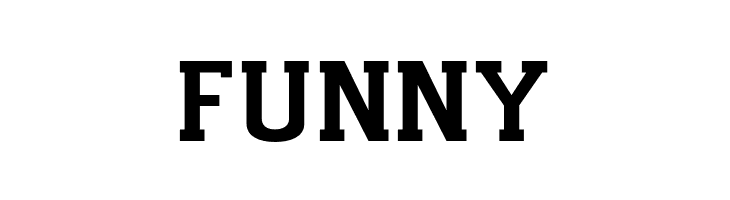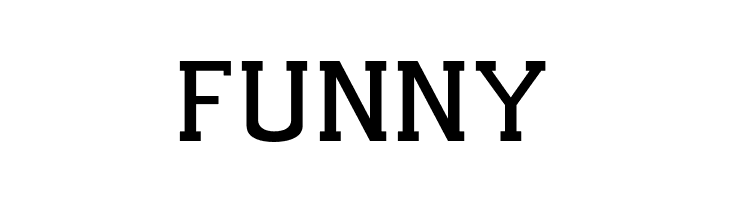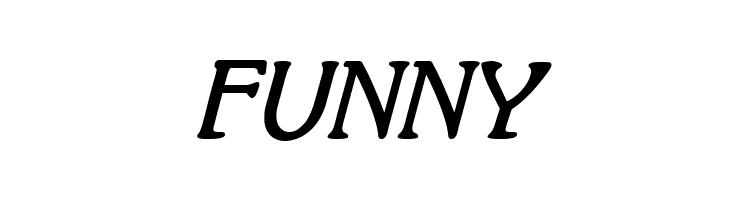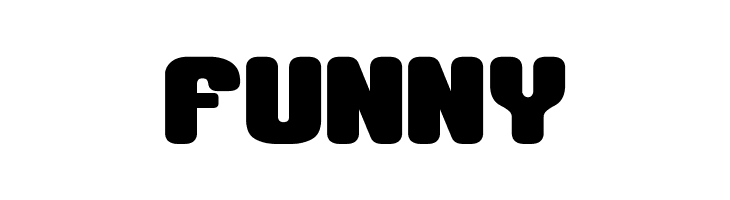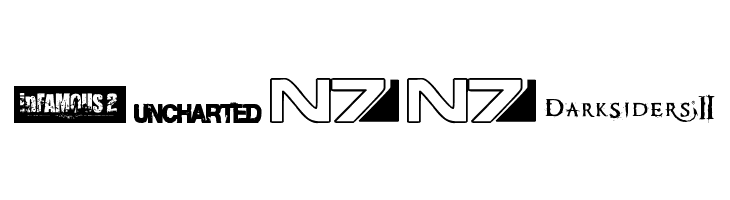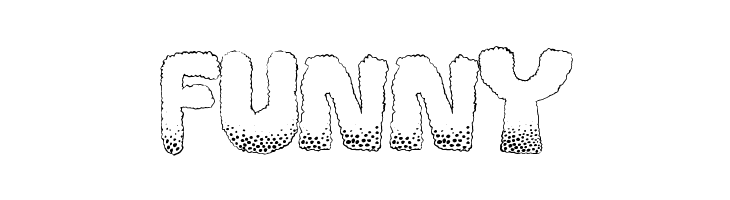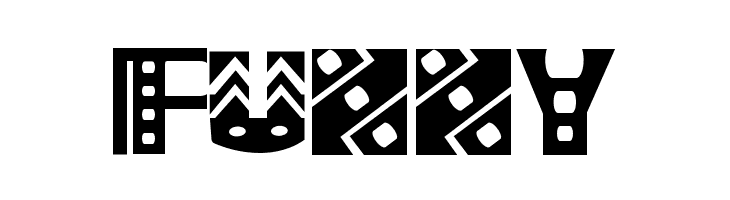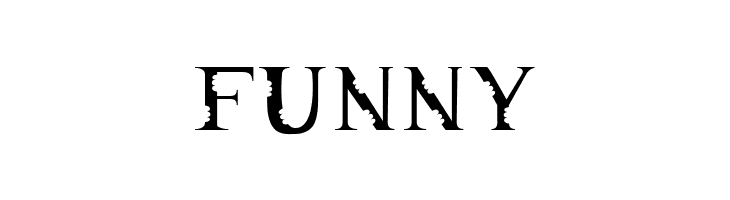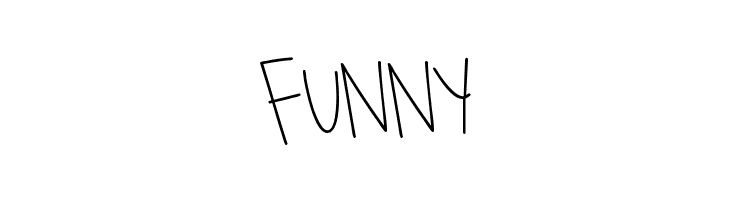
A playful font made of coffee bean-like shapes, offering a textured and unique appearance.
A tall, narrow, hand-drawn font with a rustic and organic feel.
A playful, bold font with a whimsical, cartoon-like style.
A bold, rounded font with a playful and modern style.
A flowing, cursive script font with elegant swashes and a modern twist.
A bold, geometric font with a modern and impactful design.
A playful handwritten font with a casual and friendly style.
A bold, textured font with a rugged, organic appearance.
A bold, textured font with a rugged, distressed style.
A modern, rounded sans-serif font with uniform stroke width and balanced spacing.
An elegant serif font with a modern twist, offering balanced and refined letterforms.
A bold, distressed font with an eroded, edgy appearance.
A playful, textured font with a bubbly, hand-drawn appearance.
Bold geometric sans-serif with stencil-like, high-contrast text and graphic elements.
A modern serif font with clean lines and balanced proportions.
A bold and robust font with strong, thick strokes and a touch of elegance.
A decorative font made entirely of mustache illustrations.
A playful, mustache-themed font with a whimsical and creative design.
A bold, blocky font ideal for impactful headlines and branding.
Bold, blocky font with thick outlines and a strong, impactful presence.
A bold, slab serif font with a strong, geometric design ideal for impactful displays.
Bold, outlined font with a strong, three-dimensional appearance.
A classic, elegant font with a slight slant and moderate contrast, ideal for sophisticated designs.
A classic, elegant font with a slight slant and moderate contrast, perfect for sophisticated designs.
A bold, italicized serif font with moderate contrast and classic elegance.
A bold, italicized serif font with strong, consistent strokes and pronounced serifs.
A bold, slightly italicized serif font with smooth curves and elegant serifs.